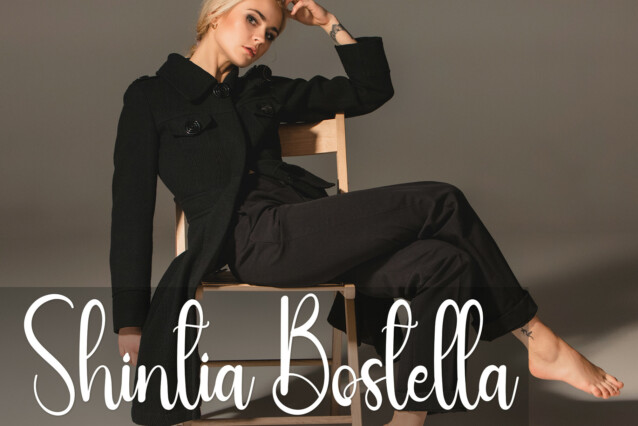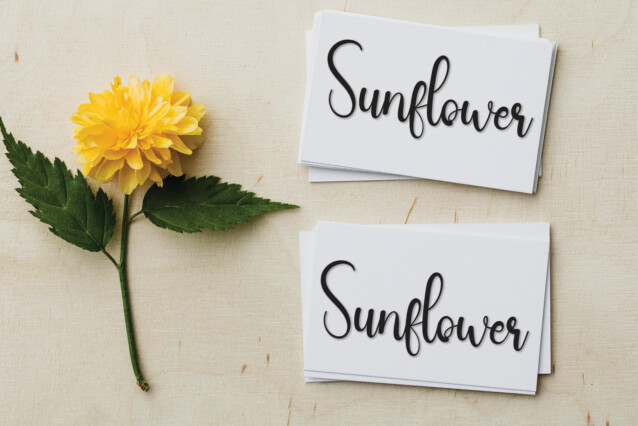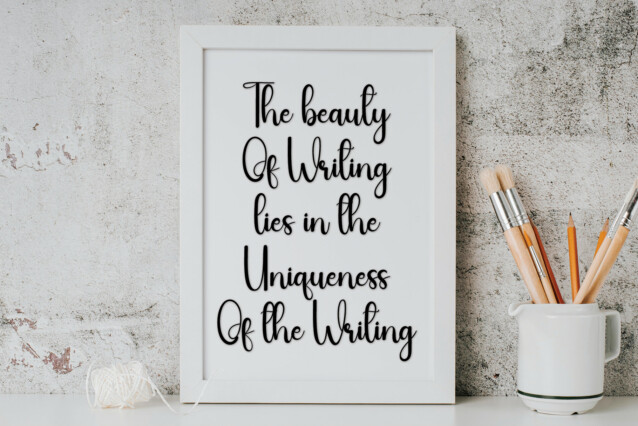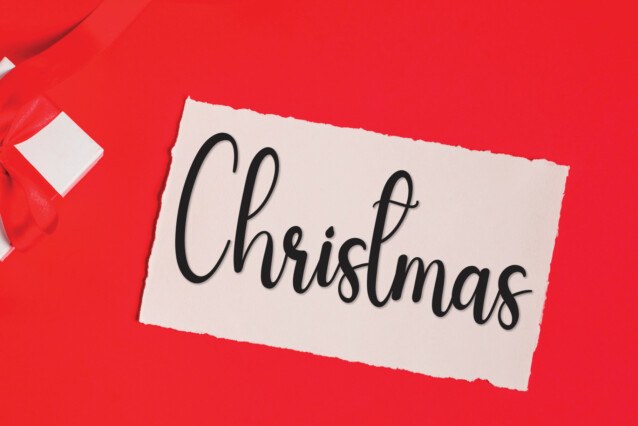
Feminine Script Font
Feminine Script Font is a cursive and beautifully flowing script font. Its latest style letters are perfect for wall displays, wedding invitations, social media post logos, advertisements, product packaging, product designs, labels, photography, watermarks, invitations, stationery, and any project that requires handwriting.